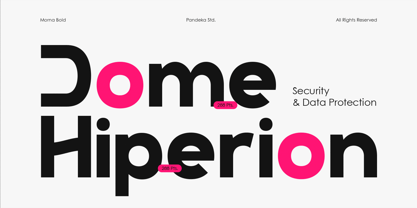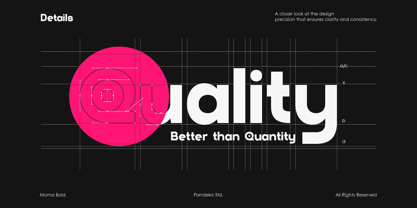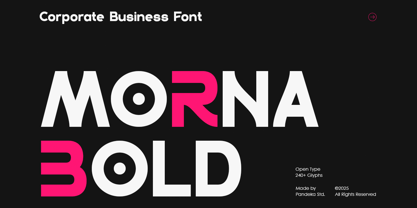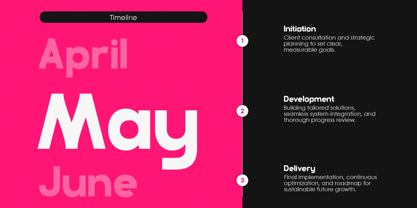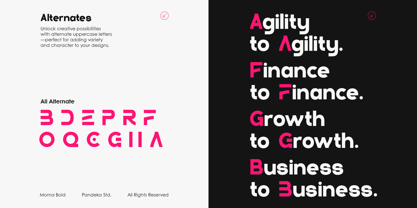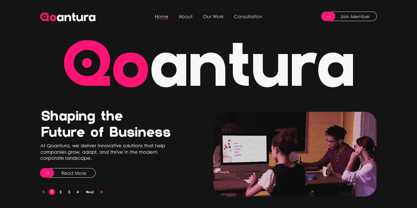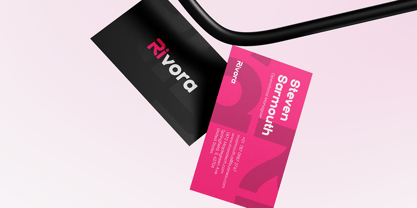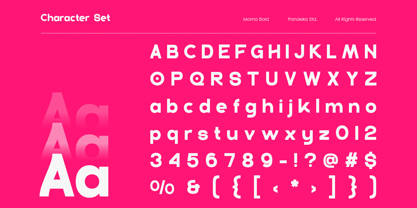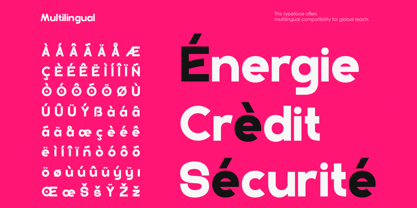
Morna Bold is a modern sans-serif font designed with strong geometric shapes and bold confidence, perfect for corporate and business branding. It brings a professional yet approachable personality to your design, ideal for companies that value innovation, clarity, and modern aesthetics.
With clean lines and balanced letterforms, Morna Bold embodies both precision and style, making it suitable for logos, business presentations, tech startups, digital agencies, and modern brand identities. The font’s bold structure enhances readability and creates a strong visual presence across both print and digital media.
Morna Bold comes in one regular style, featuring 15+ alternates & ligatures to provide versatile typographic combinations. It also includes uppercase, lowercase, numerals, punctuation, and multilingual support, allowing you to adapt it seamlessly across global projects.
• 15+ Ligatures and alternates
Language Support:
Danish, English, Estonian, Filipino, Finnish, French, Friulian, Galician, German, Gusii, Indonesian, Irish, Italian, Luxembourgish, Norwegian Bokmål, Norwegian Nynorsk, Nyankole, Oromo, Portuguese, Romansh, Rombo, Spanish, Swedish, Swiss-German, Uzbek (Latin)
Morna Bold